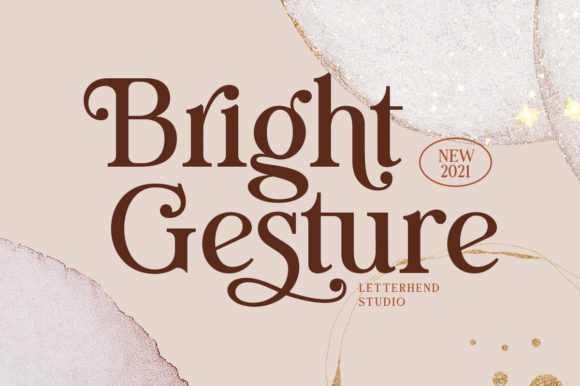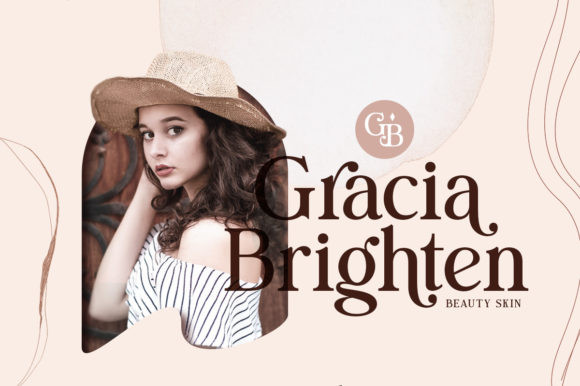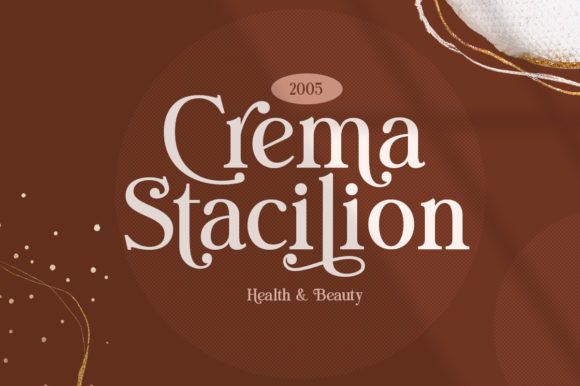
Bright Gesture Font
Bright Gesture is a modern serif font that is readable, bold and stylish. It is defined by smooth curves and is perfect for fashion branding or editorial designs. Add it confidently to your projects, and you will love the results.